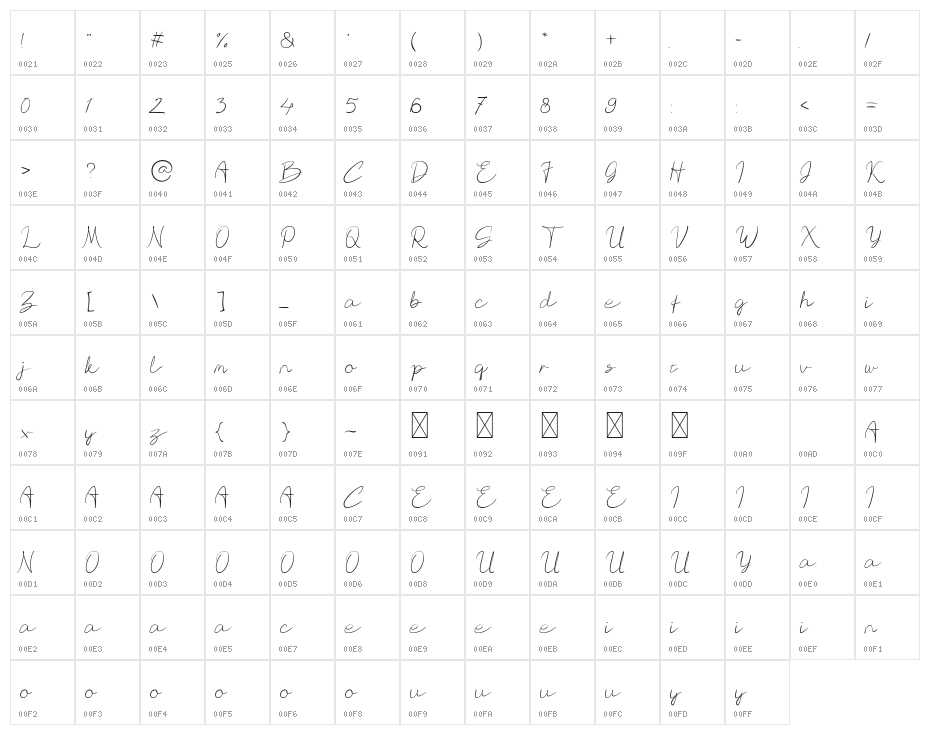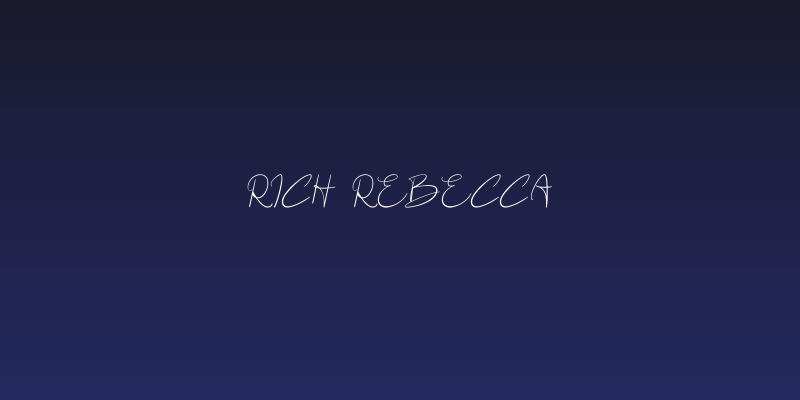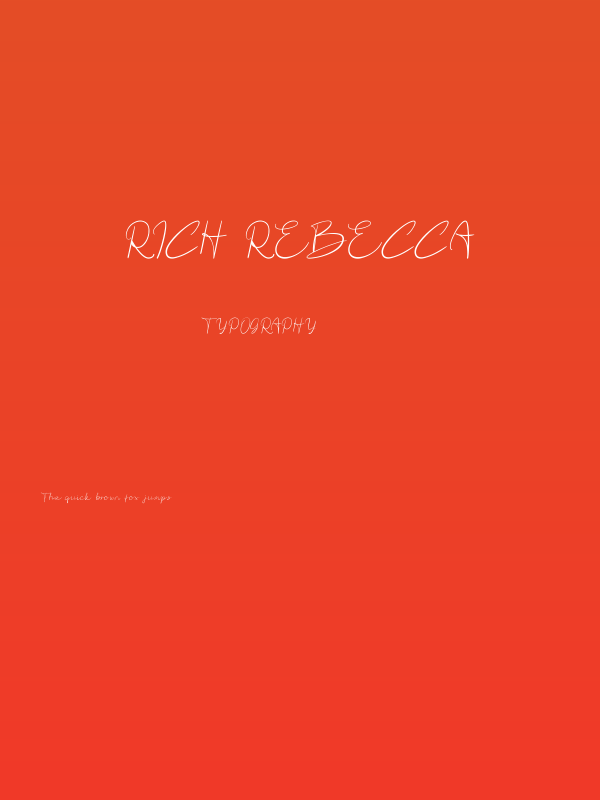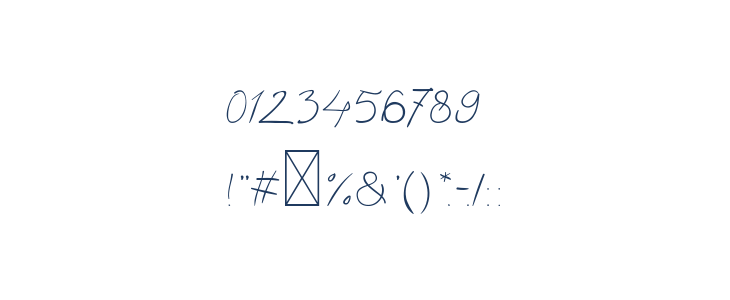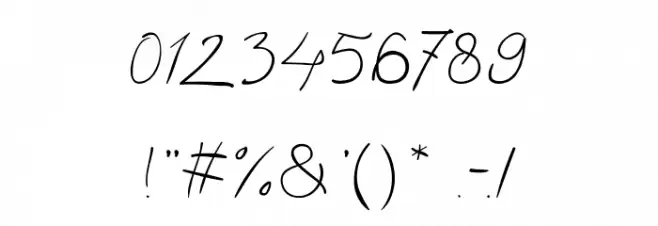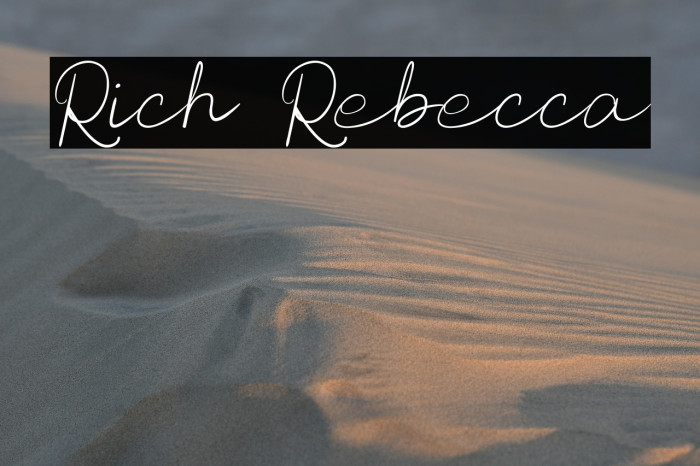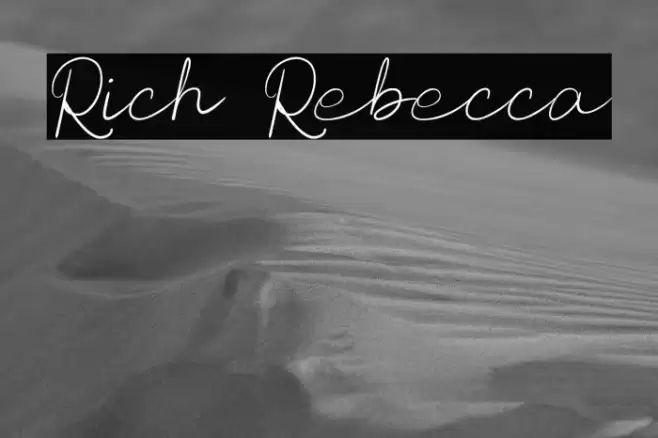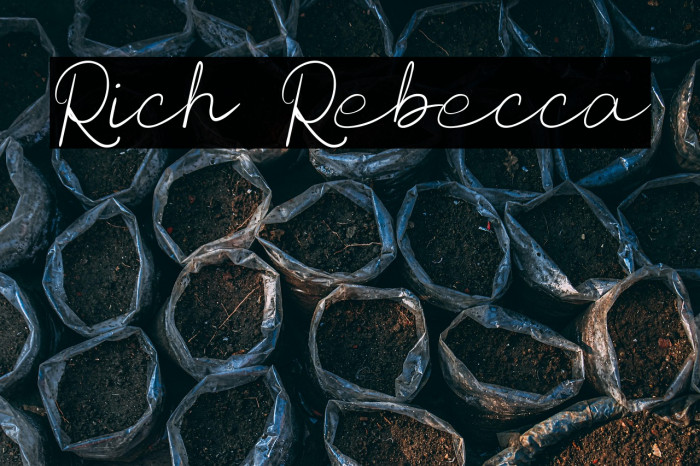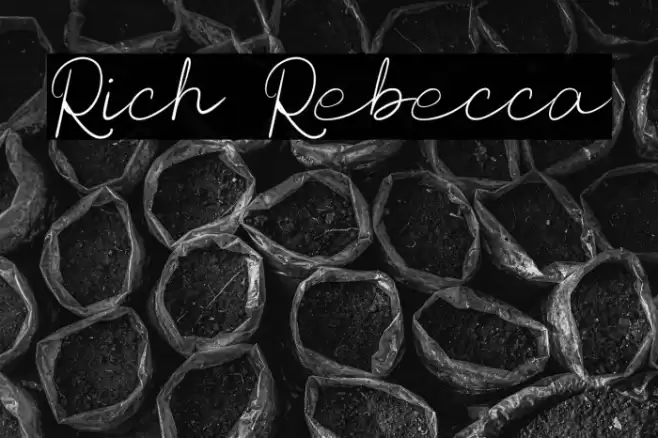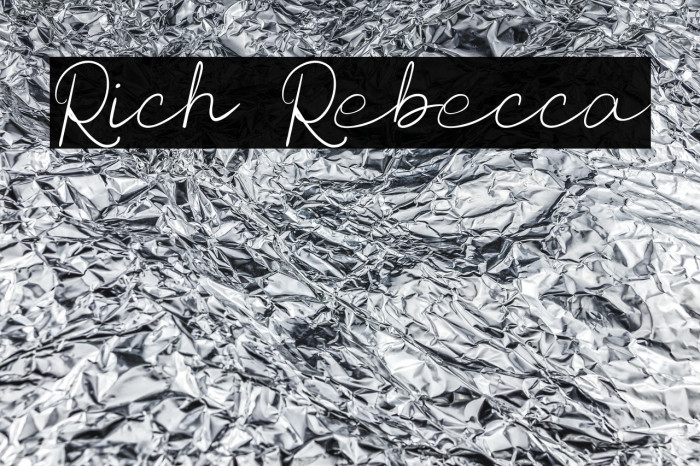
Rich Rebecca Font
This font features an elegant and flowing script style, characterized by its smooth, cursive letterforms. The uppercase letters are particularly ornate, with sweeping curves and a sense of fluidity that suggests a handwritten touch. The lowercase letters maintain the same graceful quality, with a slightly more restrained design that enhances readability. The numerals and special characters are consistent with the overall aesthetic, offering a cohesive look. This font is ideal for projects that require a personal, sophisticated touch, such as invitations, greeting cards, or branding materials.
| Use Case | Headlines, Invitations, Branding |
| Proposed Projects | Ideal for wedding invitations, greeting cards, branding, and elegant packaging. |